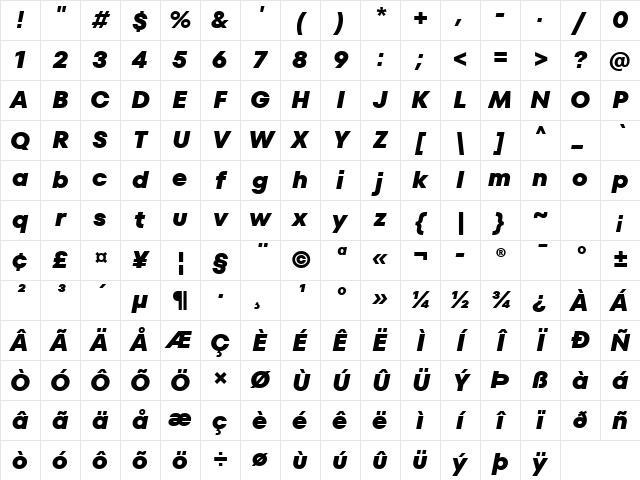
TT Fors Trial ExtraBold Italic Free Font
TT Fors Trial ExtraBold Italic
Style: ExtraBold Italic
Designer: TypeType
Design Context for TT Fors Trial
TT Fors Trial is a composed and adaptable typeface that performs quietly and consistently across a wide range of design contexts. The slanted form adds forward momentum and visual energy. Its bold stroke weight gives it real presence on the page.